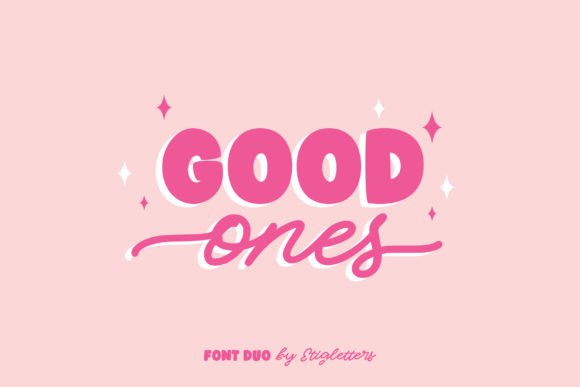
Are you looking for the best font to elevate your Gmail signature? Look no further than Good Ones Duo Font - the perfect choice for anyone who wants to add a touch of personality and playfulness to their digital communications.
Created by the talented team at Etigletters, Good Ones is a unique combination of handwritten and sans serif fonts that is sure to grab the attention of anyone who sees it. With its playful and fun-loving style, this font family is perfect for everything from stickers and greeting cards to logos and posters.
But Good Ones isn't just about looks - it's also incredibly versatile and easy to use. Whether you're a professional graphic designer or just starting out, you'll find that this font is a breeze to work with. And with its wide range of styles and characters, you'll never run out of ways to express your creativity.